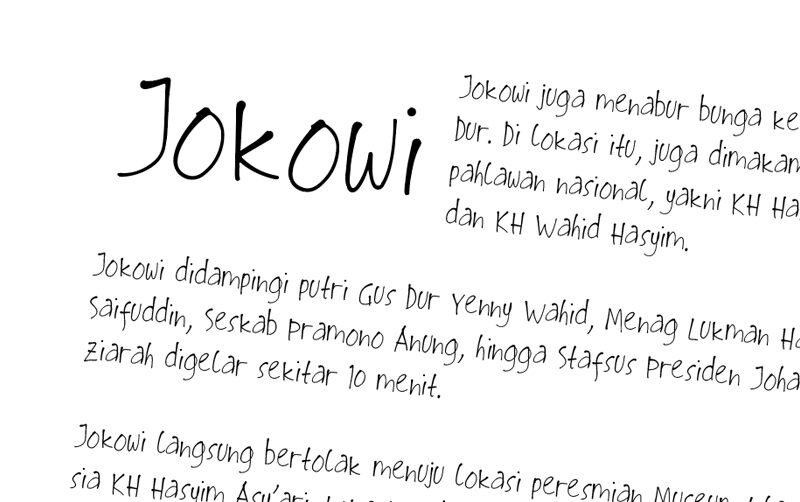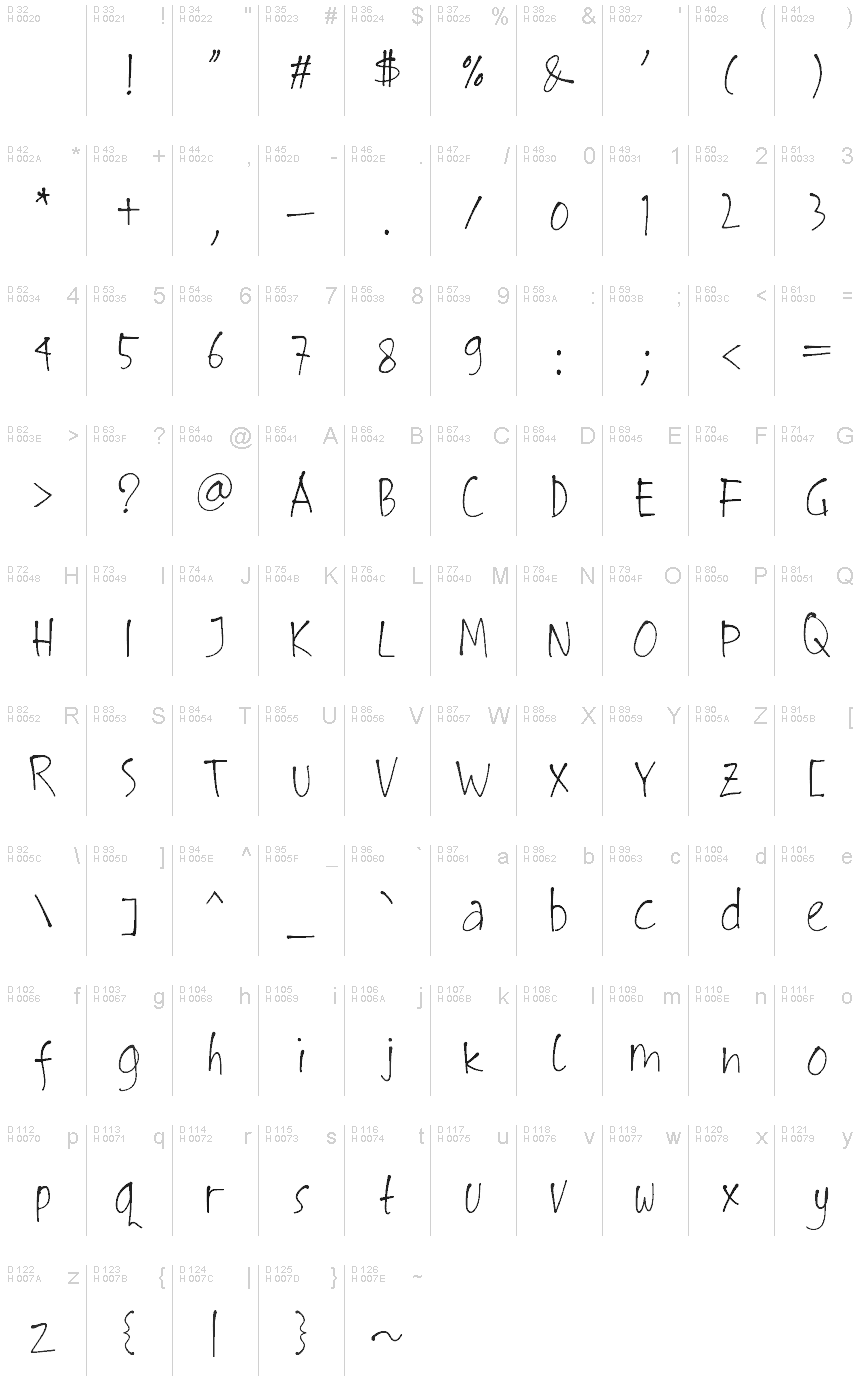
Jokowi font is inspired by a figure of the current (2018) president of Indonesia.
The character of the font is humble, humanist, as well as sharp, reflecting the personality of the president.